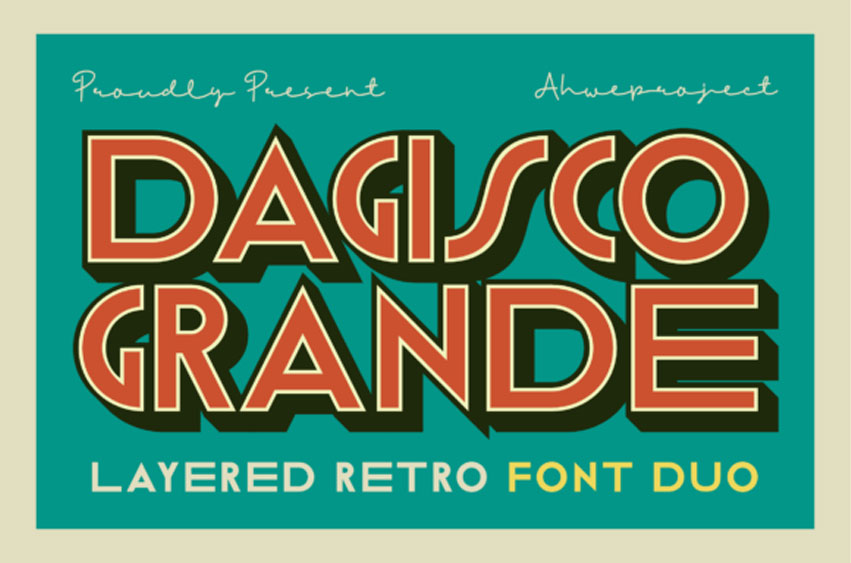
Dagisco Grande Font
Dagisco Grande Font is a unique font duo that combines a retro-style layered sans serif with an elegant signature script.
Designed with the spirit of the vintage era yet crafted to stay relevant in modern design, this font duo is ready to elevate your visual identity across a wide range of creative projects.